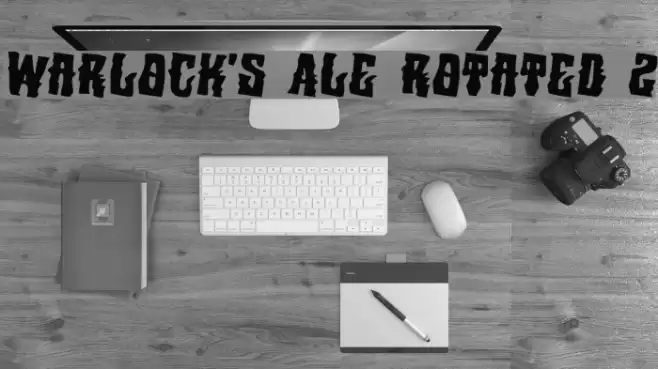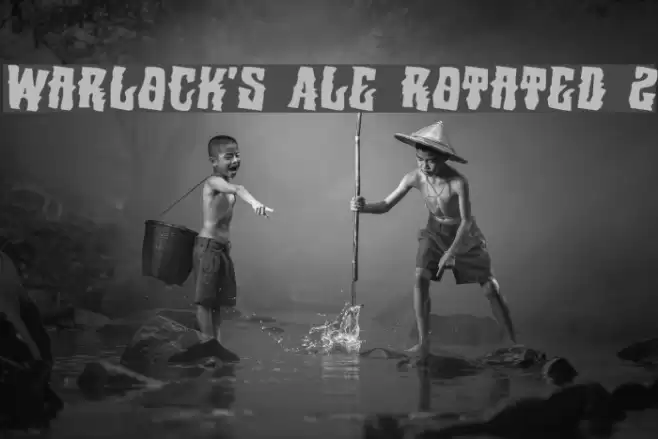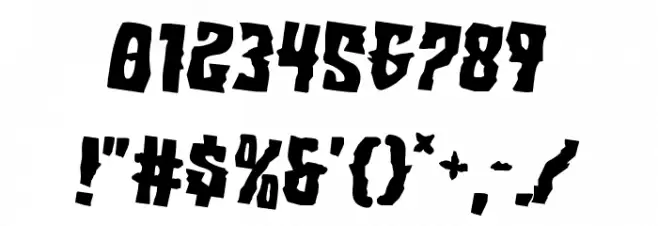
Warlock's Ale Rotated 2 Font
Warlock's Ale Rotated 2 Description
This font features a bold and dramatic style with sharp, jagged edges that give it a distinctive and edgy appearance. The characters are heavily stylized, with an irregular and almost chaotic design that suggests a sense of mystery and intrigue. The uppercase and lowercase letters maintain a consistent theme, with exaggerated serifs and angular cuts that create a visually striking effect. The numbers and special characters follow the same design principles, ensuring a cohesive look across all glyphs. This font is perfect for projects that require a bold and unconventional aesthetic.
A bold, edgy font with sharp, jagged edges and a dramatic style from Horror fonts.
- Proposed Projects: Ideal for horror-themed posters, Halloween invitations, video game titles, and edgy branding.